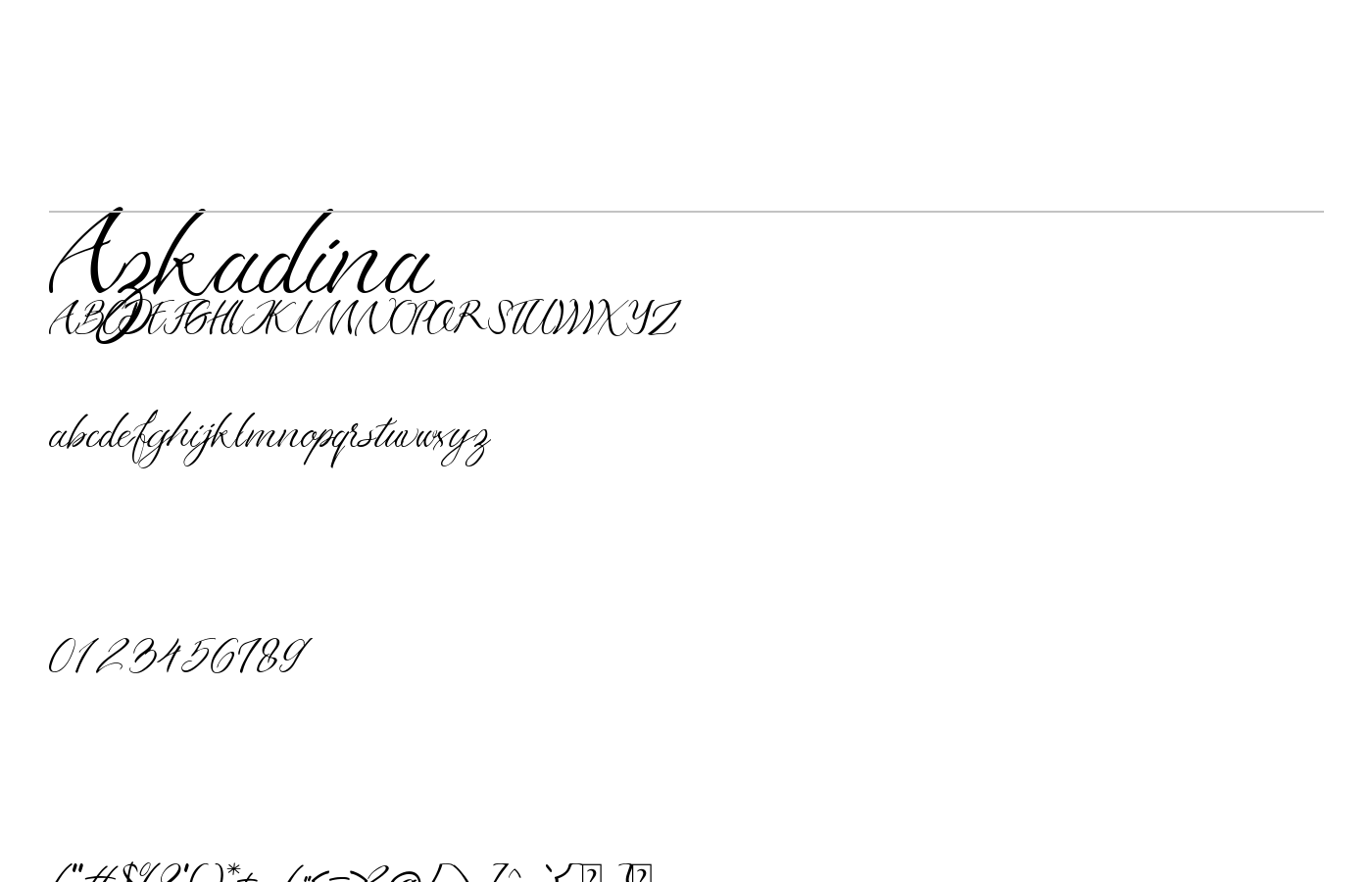
Azkadina is a delicate and elegant script font featuring thin, flowing strokes that mimic refined handwriting. Its slender letterforms with high contrast and graceful curves make it ideal for sophisticated invitations, luxury branding, and stylish editorial designs where a touch of refinement and personality is desired. This font works best in larger sizes to showcase its intricate details and feminine charm.
Azkadina Font